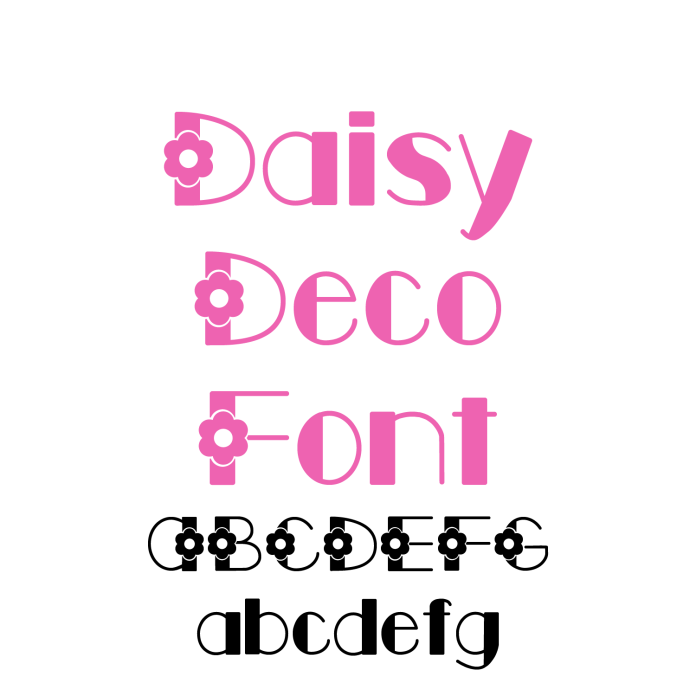
Add a cheerful, nature-inspired touch to your crafts with Daisy Deco Font – a playful sans serif typeface featuring floral details on uppercase letters only. Each capital letter is accented with a cute daisy design, while the lowercase letters remain simple and clean for easy readability and versatility. Perfect for spring and summer projects, garden party invitations, floral-themed shirts, vinyl decals, and handmade gifts. This fun decorative font cuts cleanly, making it great for use with cutting machines. Whether you're personalizing tote bags, mugs, or greeting cards, Daisy Deco brings a fresh floral charm to every design.